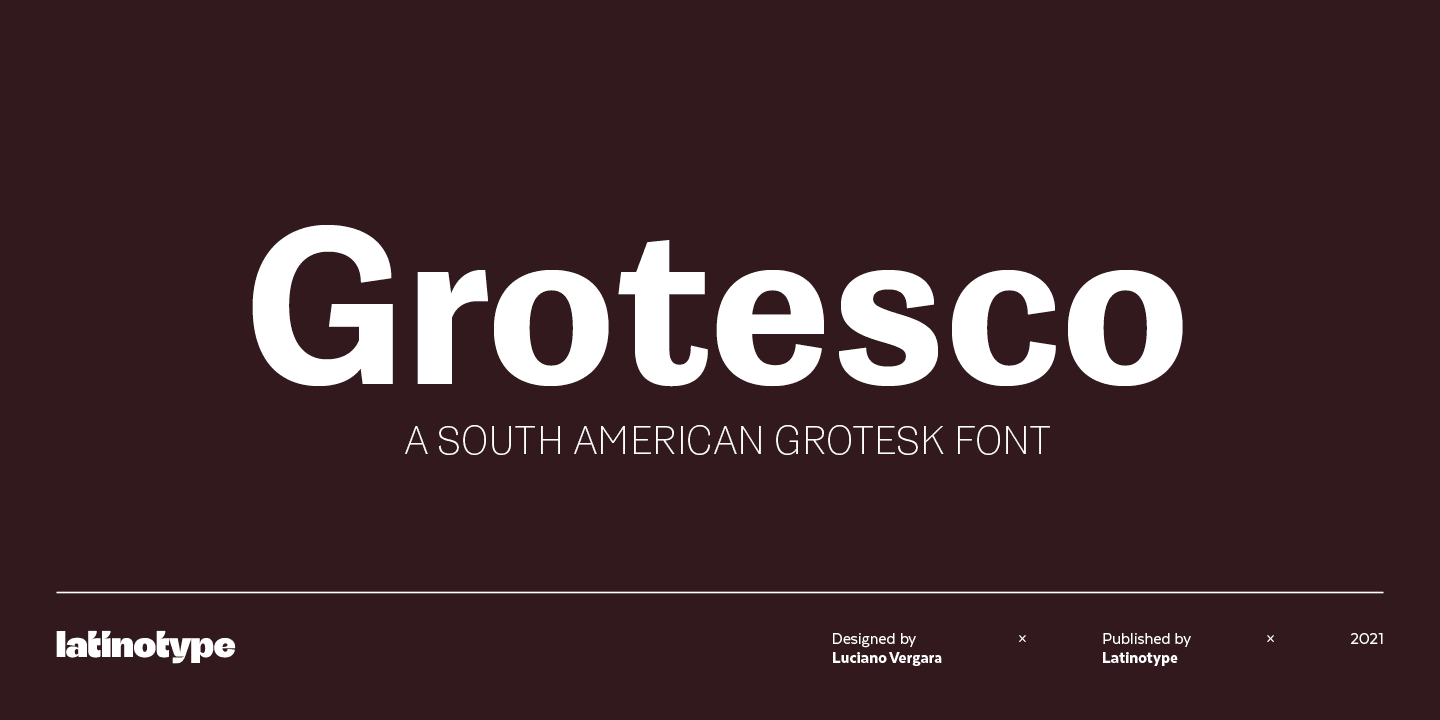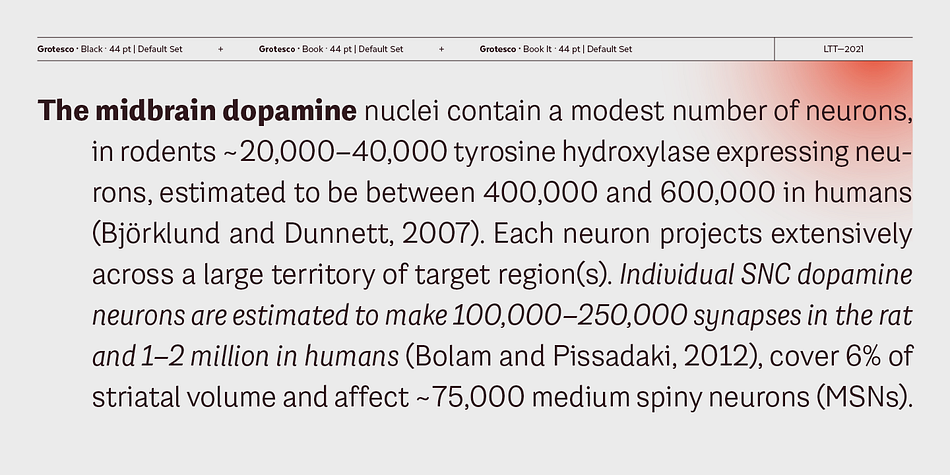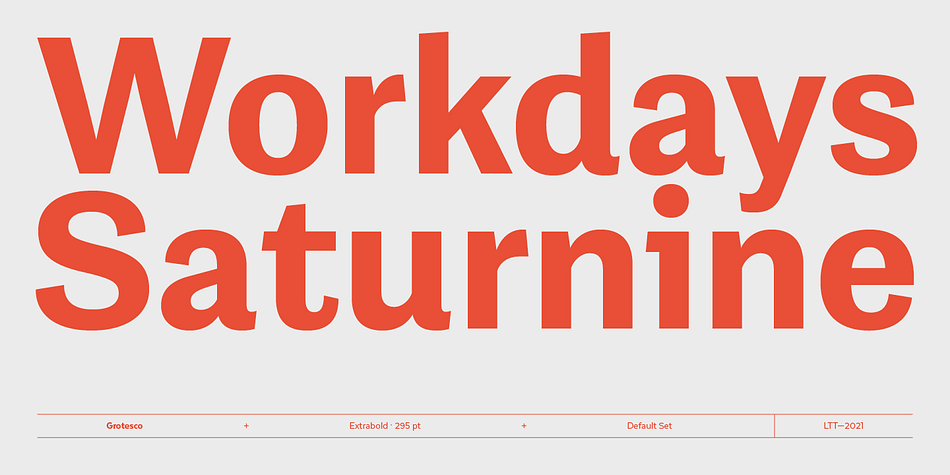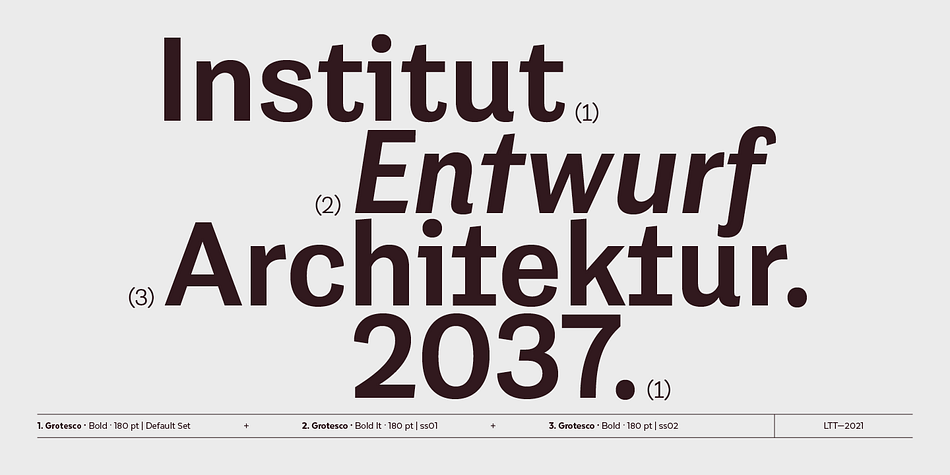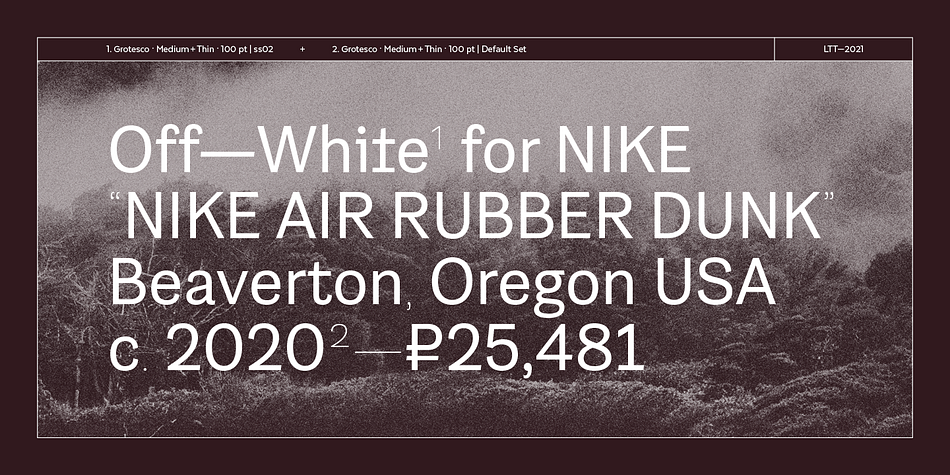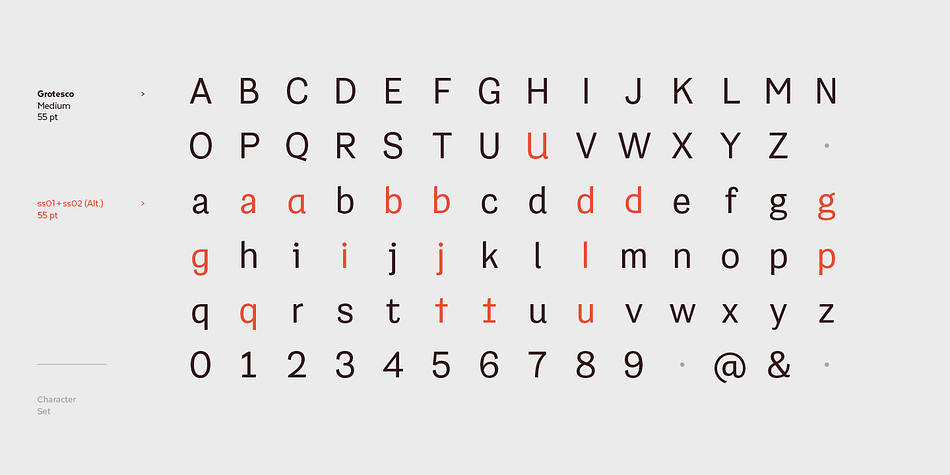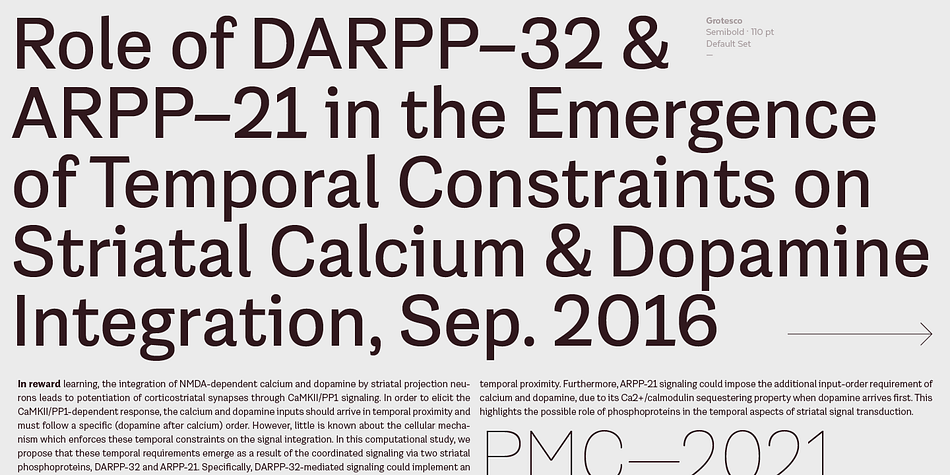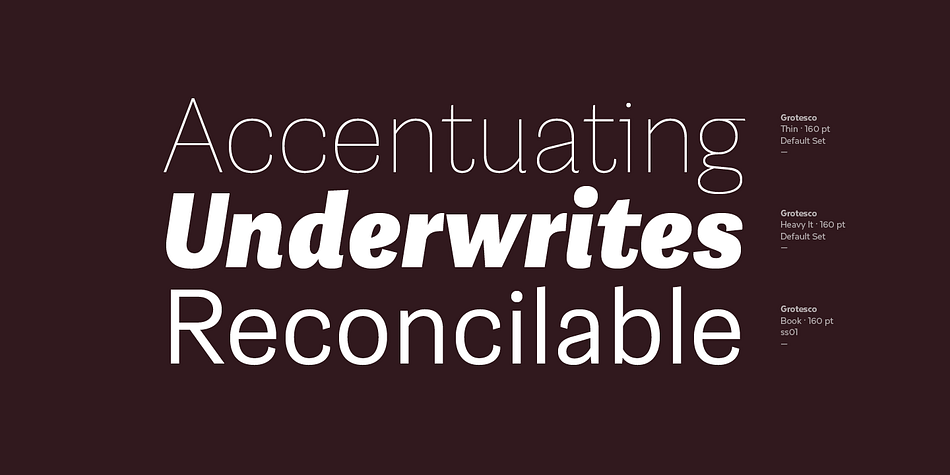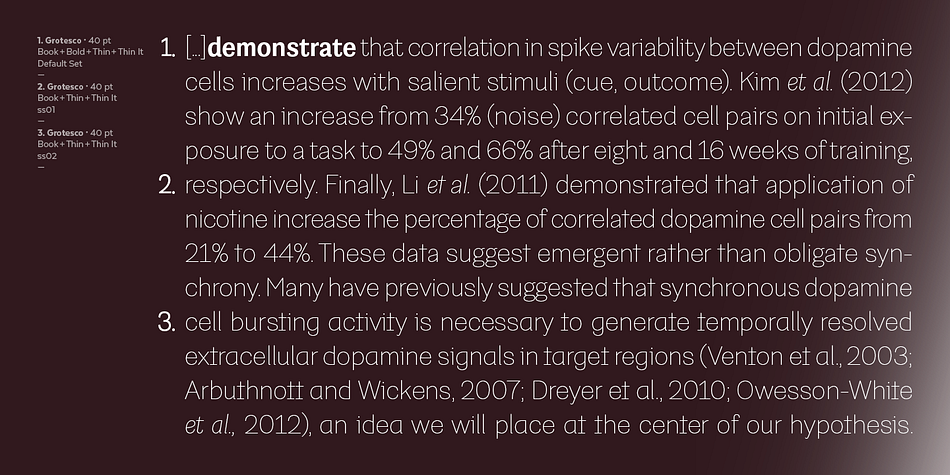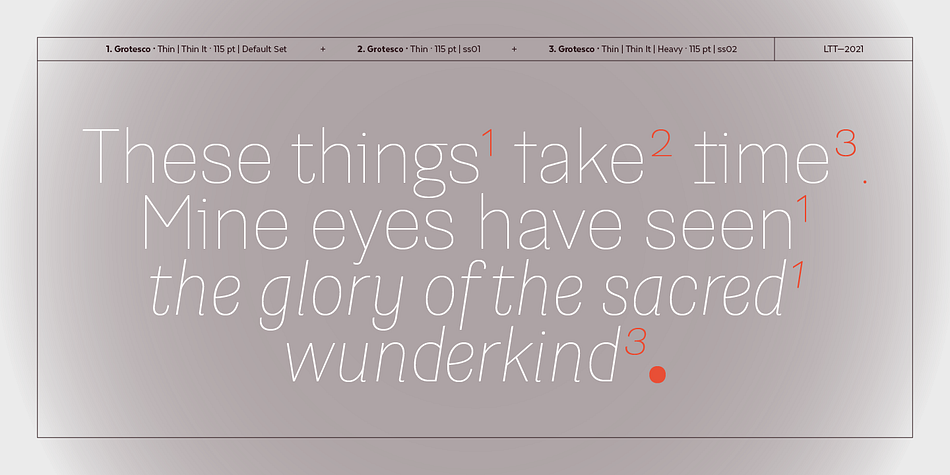
Designed by Luciano Vergara, Grotesco is a sans serif font family. This typeface has twenty styles and was published by Latinotype.
This South American grotesk font blends the functionality of an American grotesk typeface with that unique Latino rhythm and flair. Sure it can be quite serious, but more importantly, its two alternate sets allow you to bring flavor to your logos, brands and advertising designs.